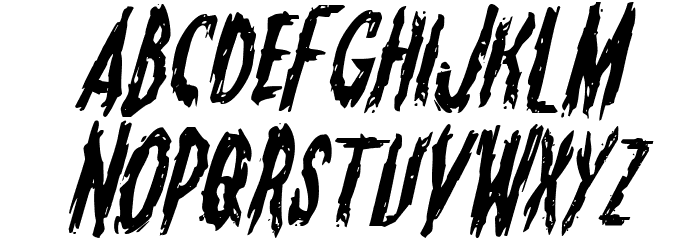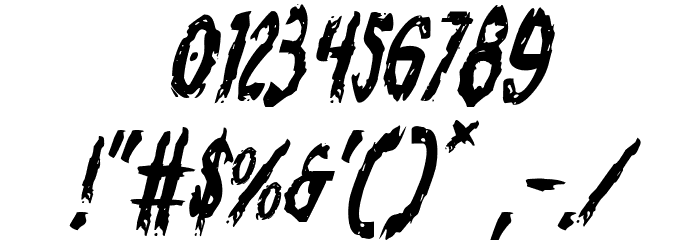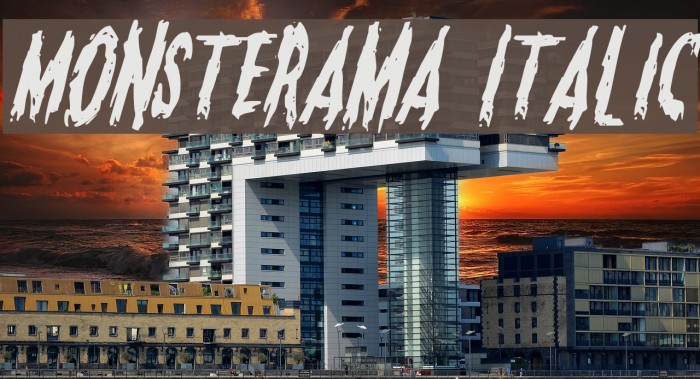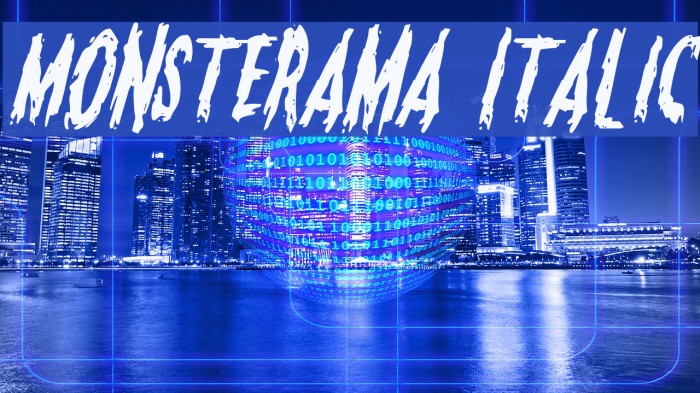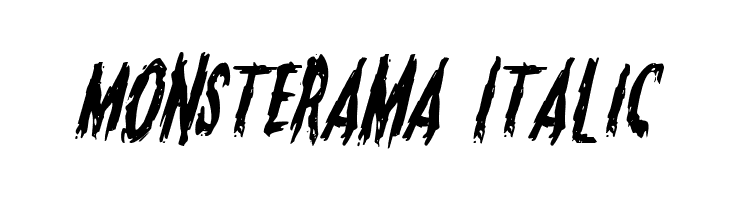
Monsterama Italic Font
This font features a bold and jagged design, reminiscent of horror or thriller themes. The characters are sharply angled and appear as if they have been scratched or clawed, giving a sense of urgency and intensity. The uppercase and lowercase letters maintain a consistent style, with exaggerated serifs and uneven strokes that add to the chaotic aesthetic. Numbers and special characters follow the same rugged pattern, making the font suitable for attention-grabbing headlines or thematic designs. The overall appearance is dynamic and energetic, perfect for projects that require a dramatic and impactful visual element.
A bold, jagged font with a horror-themed, scratched appearance.
- Proposed Projects: Ideal for horror movie posters, Halloween event flyers, video game titles, or any project needing a dramatic and intense look.